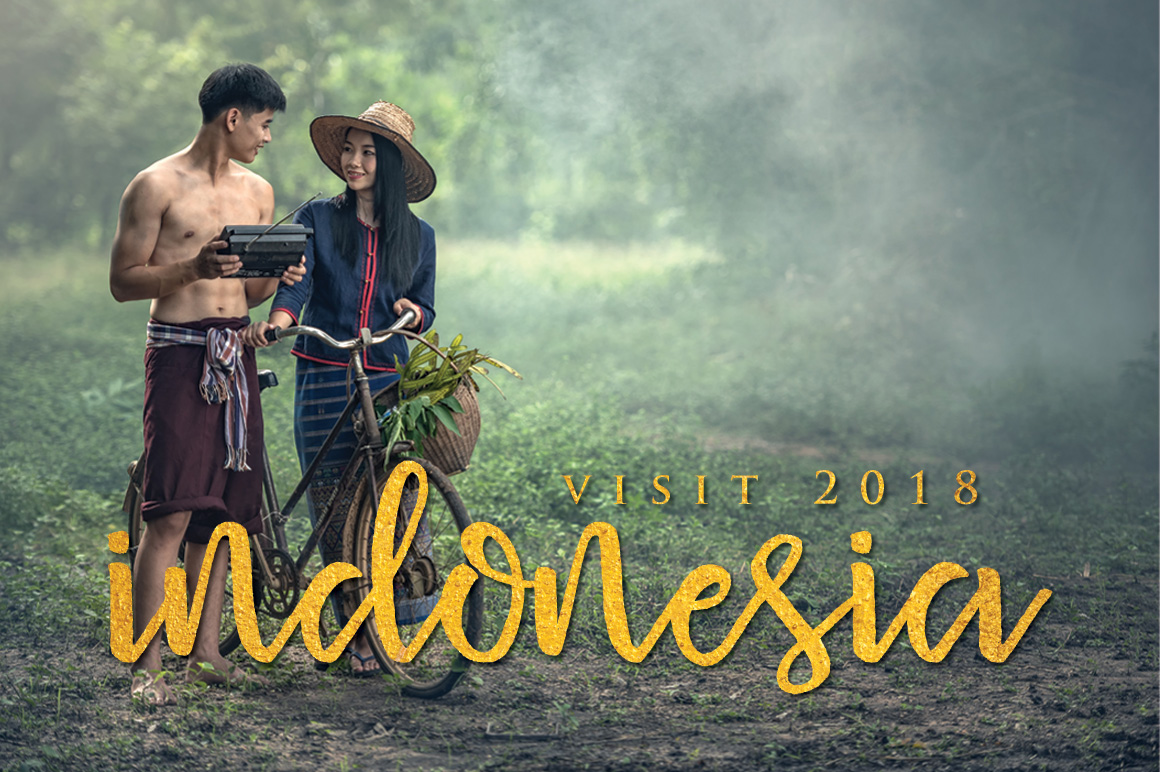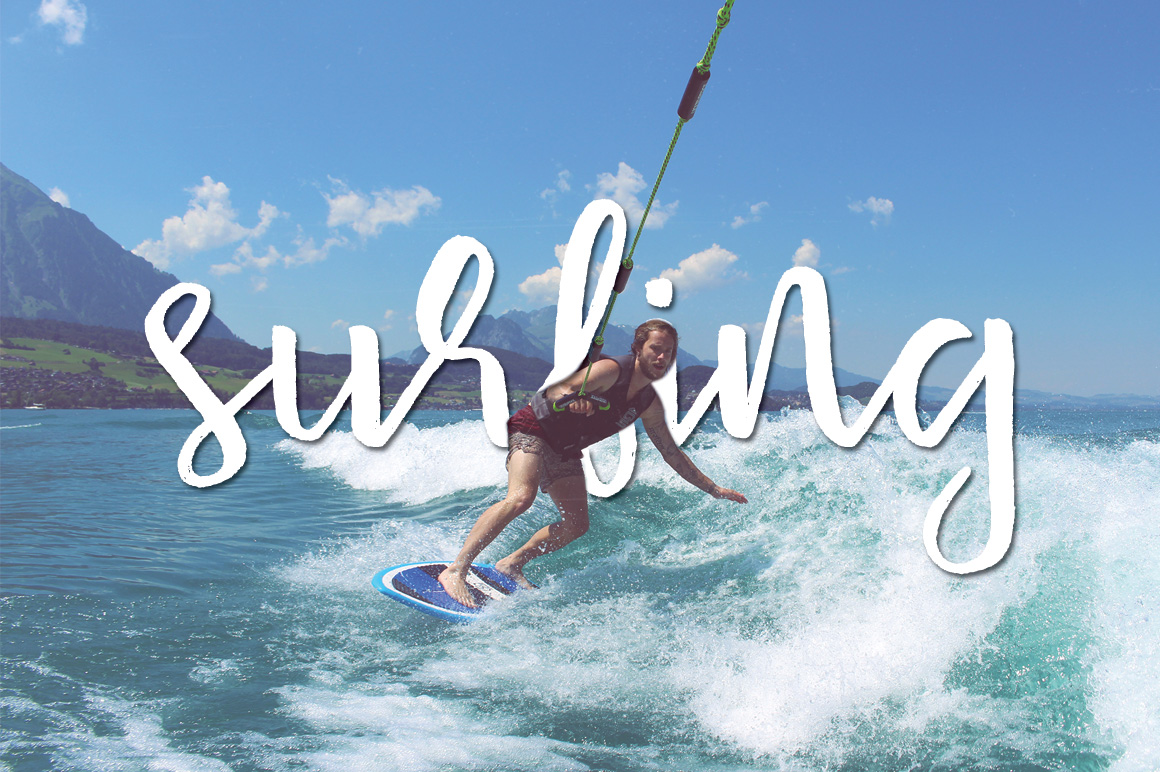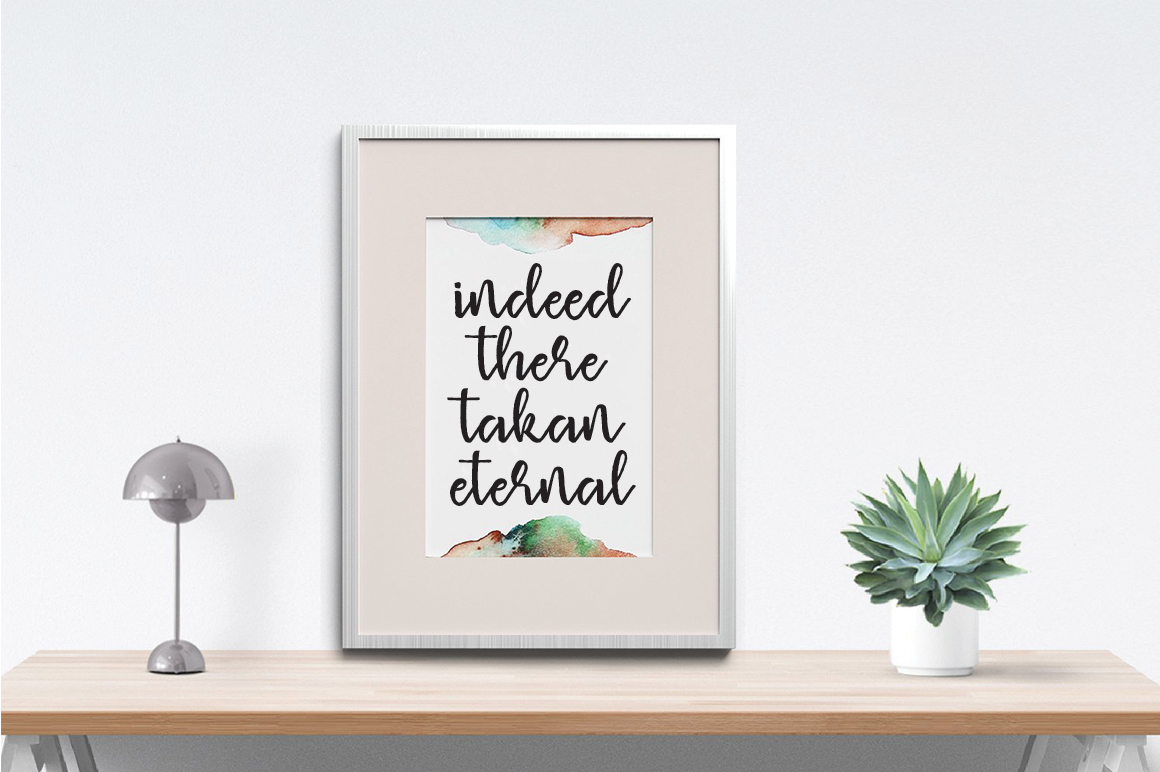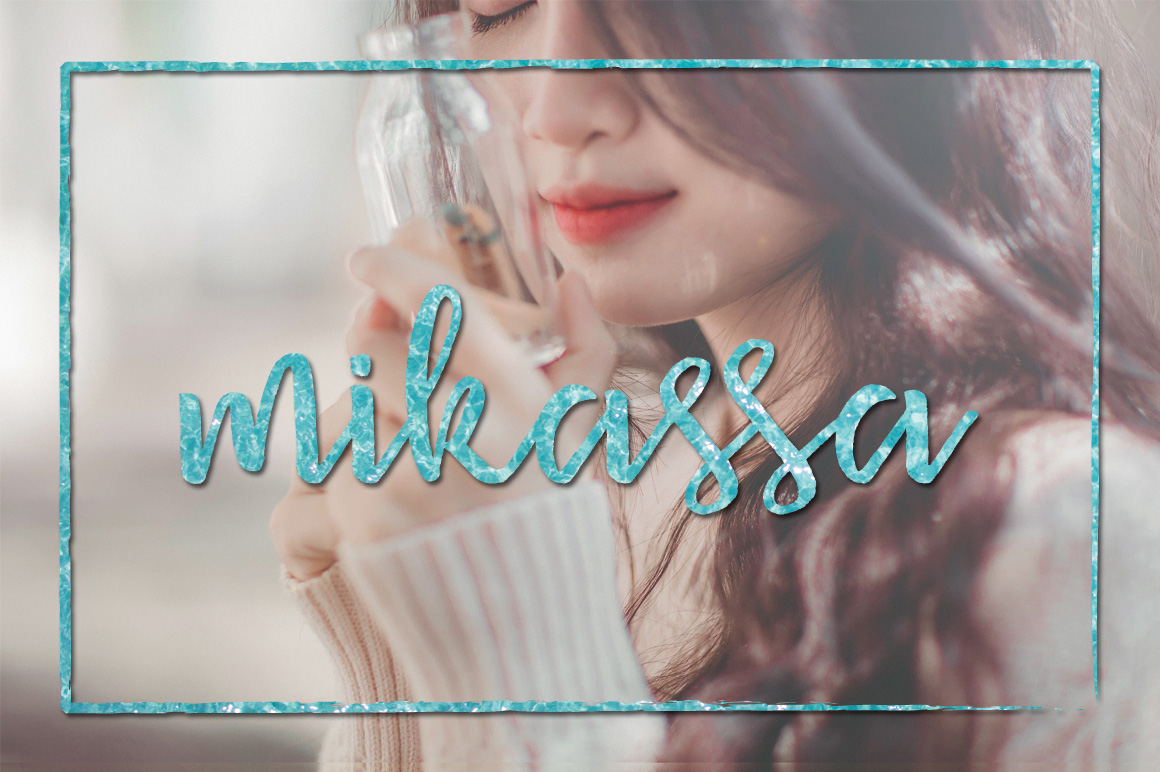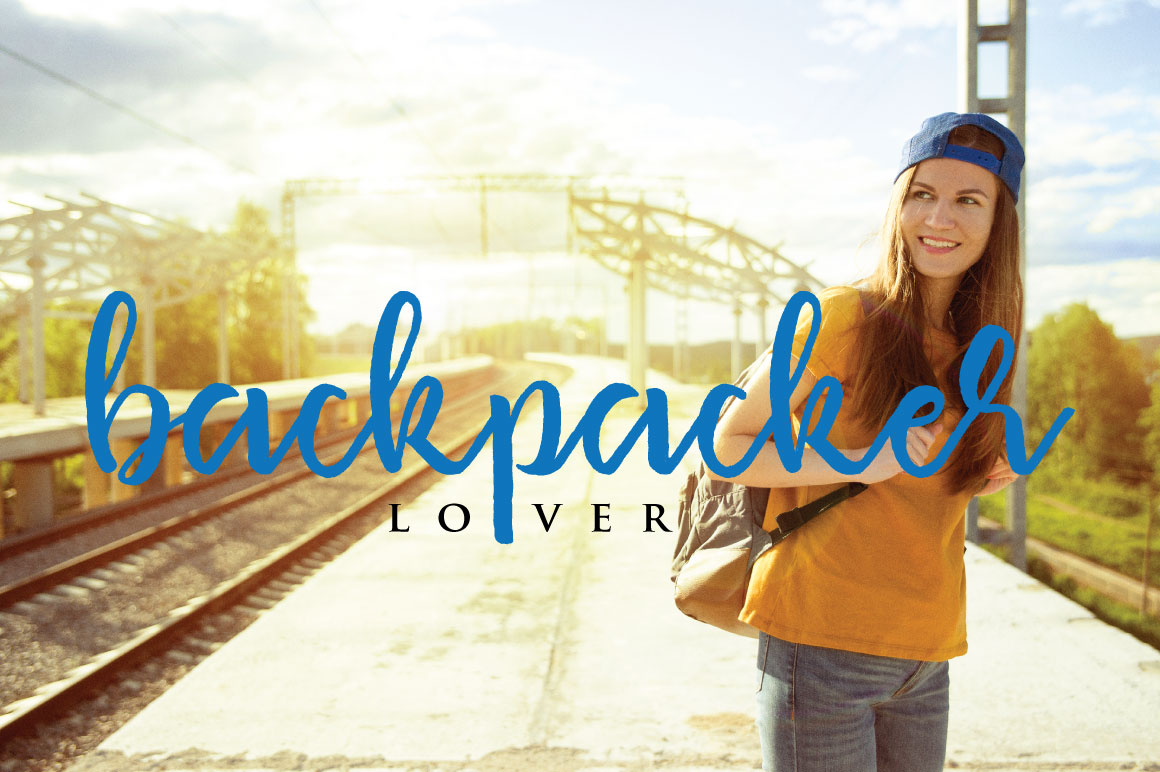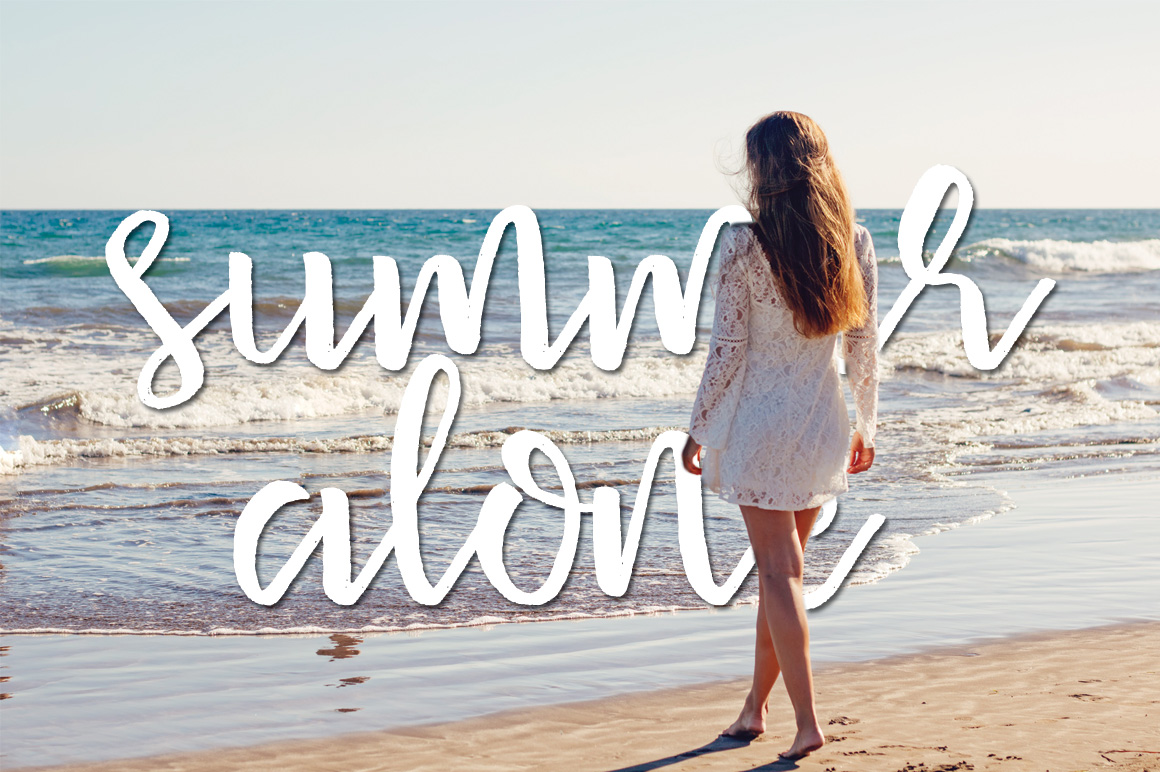
Missaki Font — Free Download Now
Introduction to Missaki Font
As you sit down to work on your next creative project, have you ever found yourself stuck on the perfect font to bring your vision to life? The hunt for the perfect font can be a daunting task, but what if you stumbled upon a font that’s as elegant as it is functional?
Enter the Missaki Font, a fresh and fluid script font that’s sure to elevate your design game. With its high-quality design and transparent background, Missaki Font is the perfect addition to any design resource. And the best part? It’s available for a free download, making it an accessible resource for designers of all levels.
Whether you’re working on a personal project or collaborating with a team, the Missaki Font is a valuable asset that’s sure to bring a touch of sophistication to your creative endeavors.
Key Features of Missaki Font
• High-quality, free font suitable for various design resources, including creative projects.
• Designed to be highly legible, making it perfect for use in titles, headings, and body text.
Honest Review: Missaki Font
I recently stumbled upon the Missaki Font and was impressed by its unique style and high quality. As a designer, I’m always on the lookout for new design resources to elevate my creative projects, and this font definitely delivers.
What works well is its sleek and modern aesthetic, perfect for any design that needs a touch of sophistication. I also appreciate that it comes with a transparent background option, making it easy to customize and integrate into my designs.
• High quality design with a modern aesthetic
• Perfect for creative projects that require a touch of elegance
However, there are a few limitations to consider ⚠️. The font may not be suitable for projects that require bold or playful typography, and the free version may have some limitations compared to the paid version.
Overall, I’m impressed with the Missaki Font and would definitely recommend it to fellow designers looking for a high-quality, modern font to add to their design arsenal ✨.
How to Use Missaki Font
The Missaki Font is a high-quality, free design resource perfect for any creative project. With its sleek and modern design, it’s ideal for use in a variety of applications, including digital graphics and print materials.
Missaki Font Features
Getting the Most Out of Missaki Font
To get the most out of Missaki Font, be sure to:
• Experiment with different font sizes and styles to find the perfect fit for your design.
• Combine Missaki Font with other design elements to create a unique and eye-catching look.
The Missaki Font is perfect for a variety of creative projects, including:
• Graphic design
• Web design
• Print materials
• Presentations
Alternatives to Missaki Font
Aleo is a high-quality, elegant sans-serif font suitable for creative projects that require a touch of sophistication. It features a transparent background, making it perfect for overlaying on images or using as a design resource for backgrounds. Aleo is available for free download and is an excellent alternative to Missaki Font for designers who want a clean and modern look.
Merriweather is a classic serif font that is ideal for projects that require a traditional and timeless feel. It features a high level of detail and is suitable for use in a variety of creative projects, from posters to magazines. Merriweather is a great alternative to Missaki Font for designers who want a font with a strong historical presence.
Montserrat is a geometric sans-serif font that is perfect for modern and urban projects. It features a clean and minimalist design, making it ideal for use on transparent backgrounds or as a design resource for backgrounds. Montserrat is available for free download and is a great alternative to Missaki Font for designers who want a font with a strong, modern feel.
Is the Missaki Font suitable for web design?
Yes, the Missaki Font is suitable for web design. Its transparent background makes it easy to combine with other design elements, and its high-quality design ensures that it will look great on any device. However, please note that you may need to use a web font service or a font embedding technique to ensure that the font displays correctly on all devices.